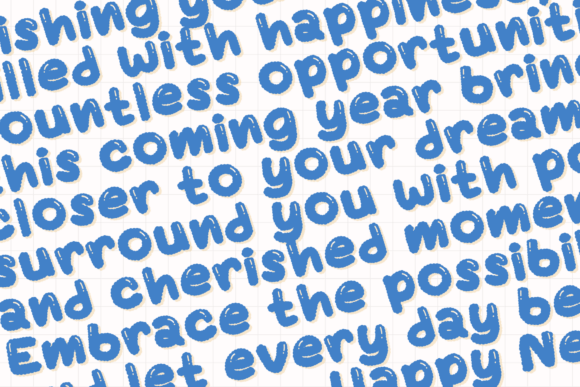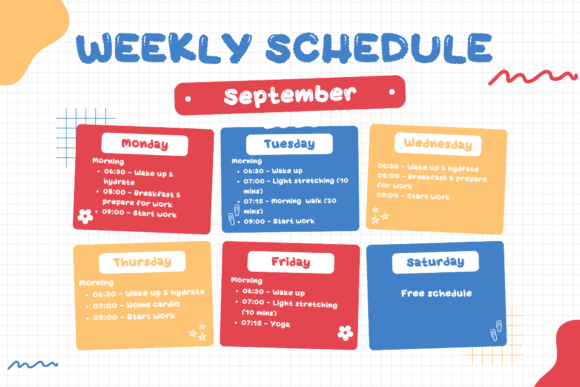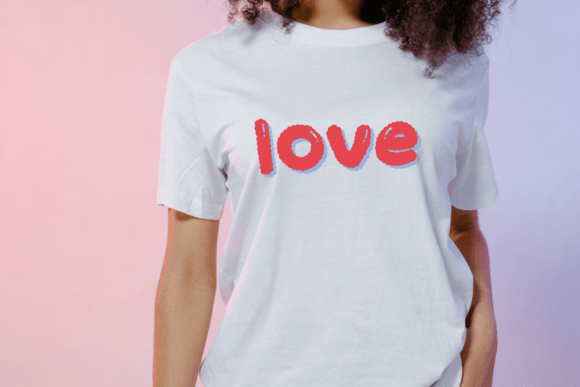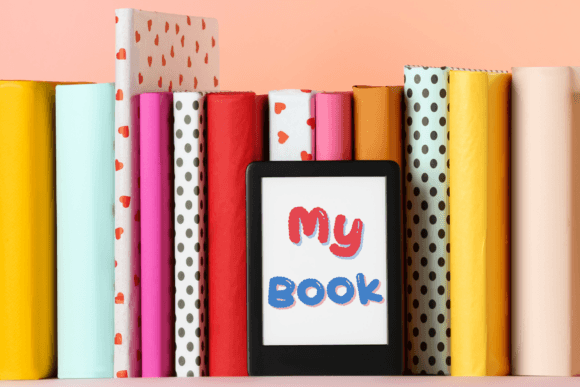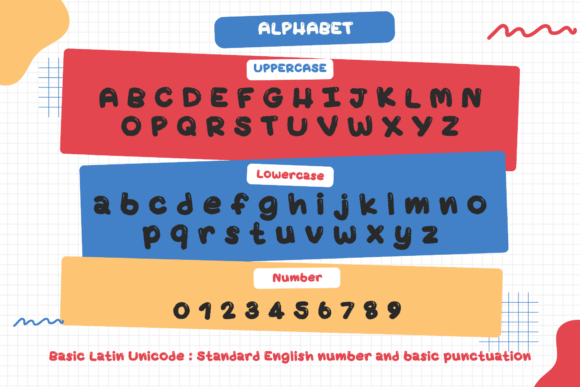
Add a Touch of Festive Flair with Brownie Font
As a designer, you know that sometimes the smallest details can make the biggest impact. It’s that moment when you’re brainstorming ideas for a holiday campaign, and you stumble upon the perfect font – one that captures the essence of the season and transports your audience to a world of magic and wonder. For many designers, this moment is what makes all the hard work worth it.
That’s where the Brownie Font comes in – a creative alphabet font designed specifically for festive designs. With its trendy handwritten, display, and decorative styles, this font is the perfect addition to any project. Whether you’re creating a holiday card, a gift tag, or a social media post, the Brownie Font adds a touch of whimsy and charm that’s sure to delight your audience.
As a valuable resource for designers, the Brownie Font offers endless possibilities for creative expression. Its versatility and playfulness make it an ideal choice for anyone looking to elevate their designs and add a personal touch to their projects.
Brownie Font Key Features
- Font Family: Brownie is a display font family, designed to be used for headings and titles.
- Unique Characteristics: Brownie’s distinctive, hand-drawn design features a mix of rough, textured elements and smooth, flowing lines, giving it a unique and eye-catching appearance.
Brownie Font Review
I recently had the chance to work with the Brownie Font, and I must say it’s a font that’s all about balance and elegance. ✨ One of the things I love about it is its high level of legibility, making it perfect for body text. It’s also incredibly versatile and can work well in a wide range of designs, from modern websites to classic print materials.
Here are some of the things that I think work well with the Brownie Font:
- High legibility: As I mentioned earlier, the Brownie Font is incredibly easy to read, making it perfect for large blocks of text.
- Style consistency: The font has a consistent style throughout, making it easy to use and predict how it will look in different situations.
- Font weight options: The Brownie Font comes with a range of font weights, from light to bold, giving you a lot of flexibility when it comes to choosing the right weight for your design.
Of course, no font is perfect, and the Brownie Font has its limitations:
- Not as expressive: Compared to some other fonts, the Brownie Font is a bit on the safe side, lacking the expressiveness and flair of some other options.
- May not stand out: Depending on the design, the Brownie Font may get lost in the crowd, lacking the punch and visual interest of some other fonts.
Overall, I think the Brownie Font is a solid choice for designers looking for a clean, elegant font that’s easy to work with. While it may not be the most exciting or expressive font out there, it’s a reliable and versatile option that’s sure to please.
The Brownie Font is ideal for:
- Creativity-driven projects, such as graphic design and digital art.
- Emphasizing text in presentations and documents.